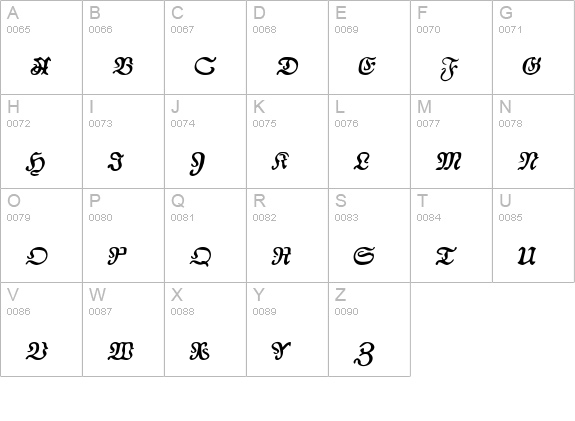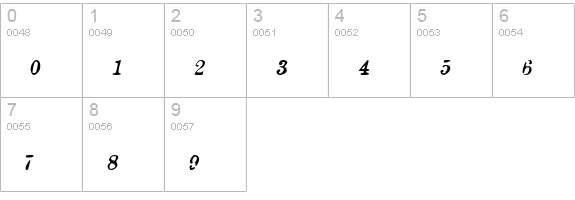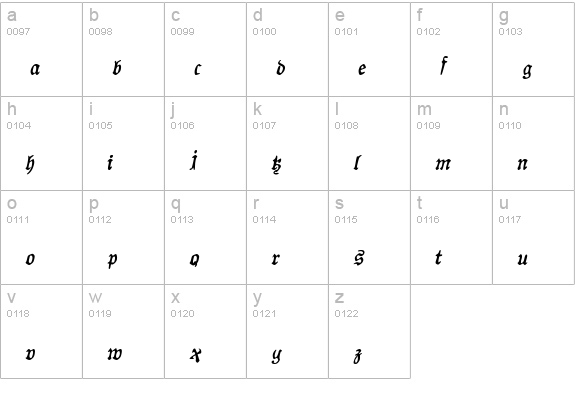
AuldMagick Bold Italic Font Details
AuldMagick Bold Italic is a strong, high-contrast, italic variant in the AuldMagick typeface family \xE2\x80\x94 well suited to headlines, attention-grabbing titles, and strong calls-to-action.
AuldMagick Bold Italic is a captivating and enchanting font that effortlessly combines the charm of traditional calligraphy with a modern twist. Its elegant strokes and graceful curves evoke a sense of timeless beauty, making it the perfect choice for those seeking a touch of magic in their designs. This font exudes a sense of boldness and confidence, with each letter possessing a unique and captivating energy. The italicized style adds a touch of sophistication and flair, making AuldMagick Bold Italic an excellent choice for branding, invitations, and editorial designs. The versatility of AuldMagick Bold Italic knows no bounds. Its captivating presence makes it equally suitable for both digital and print mediums, ensuring that your creations leave a lasting impression. Whether you're designing a logo, crafting a wedding invitation, or creating a captivating book cover, this font will elevate your work to new heights. What's even more astounding is that AuldMagick Bold Italic is available for free. Yes, you read that right! This extraordinary font is freely available to download at FontsMarket.com, a trusted and reliable source for high-quality fonts. Now, you can add a touch of magic to your designs without breaking the bank. So, why wait? Unleash your creativity and let AuldMagick Bold Italic cast its spell on your designs. Download this mesmerizing font today and embark on a journey of creativity and inspiration that will leave a lasting impression on all who behold your designs.